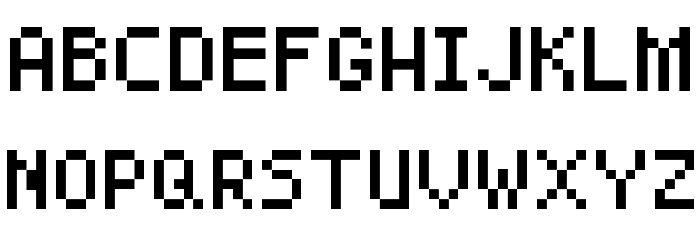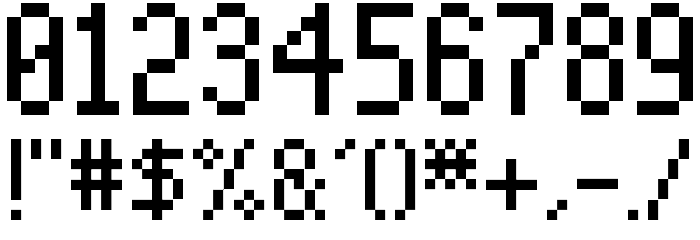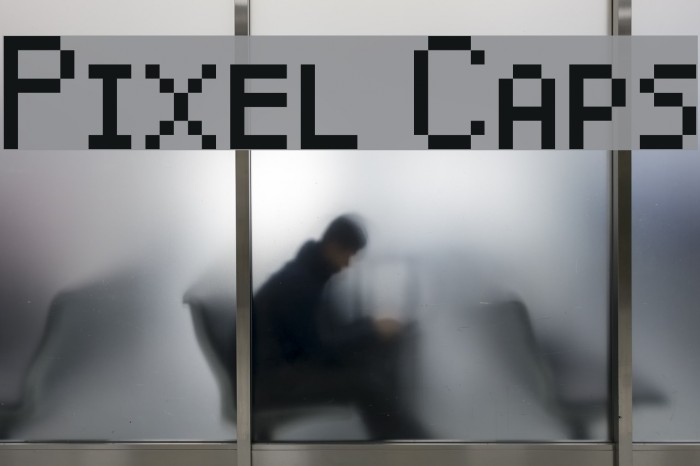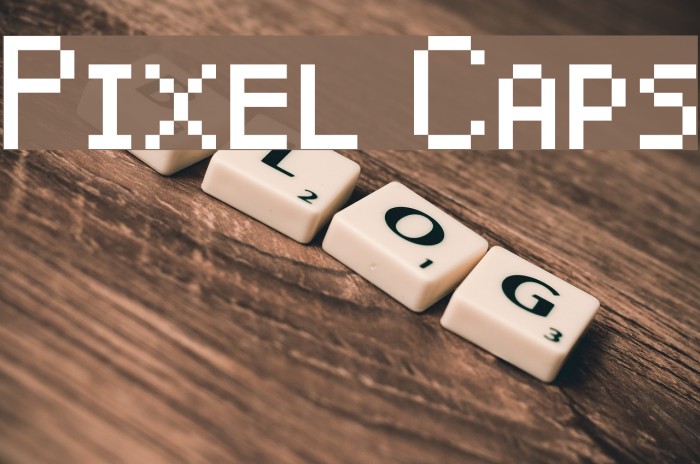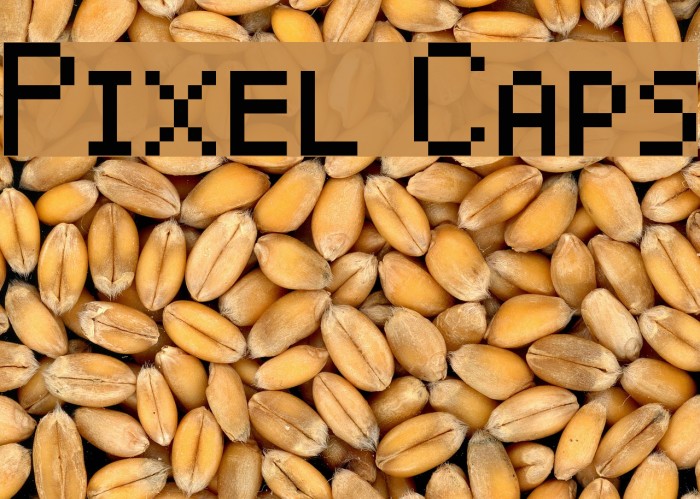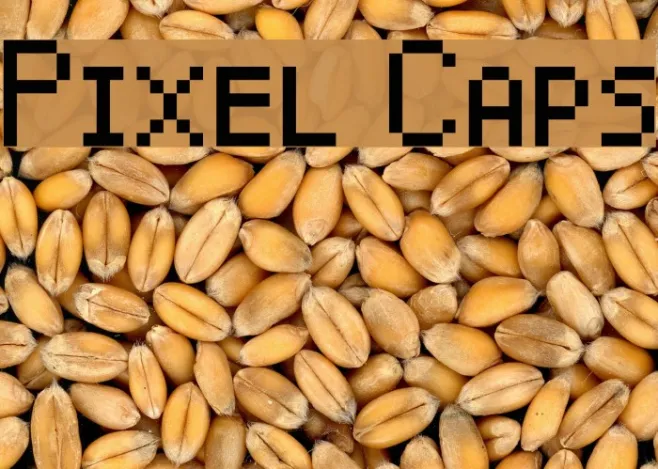
Pixel Caps Font
This font features a pixelated, blocky design reminiscent of early digital displays and video games. Each character is constructed with a grid-like precision, giving it a retro, 8-bit aesthetic. The uppercase and lowercase letters maintain a consistent height, enhancing its uniform appearance. Numbers and special characters are equally bold and clear, making them easily legible. The font's geometric style is both nostalgic and modern, suitable for projects that aim to evoke a sense of digital nostalgia or a tech-inspired theme.
A pixelated, blocky font with a retro digital aesthetic.
- Proposed Projects: Ideal for video game design, digital art projects, retro-themed posters, and tech-related branding.
- Overall Style: Retro, Digital
- Use Case: Headlines, Logos, Digital Art